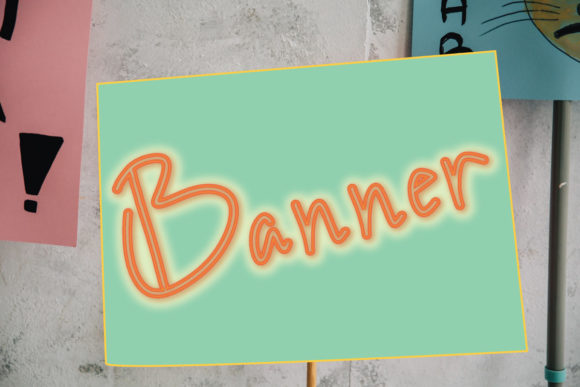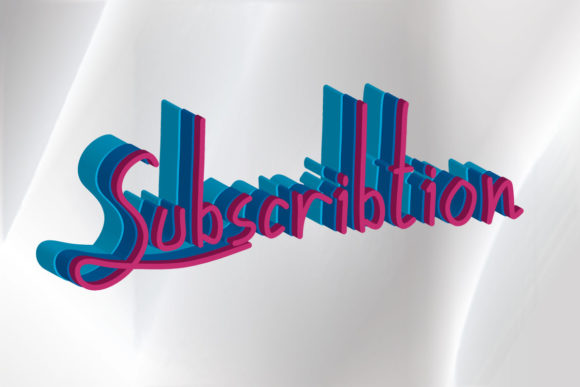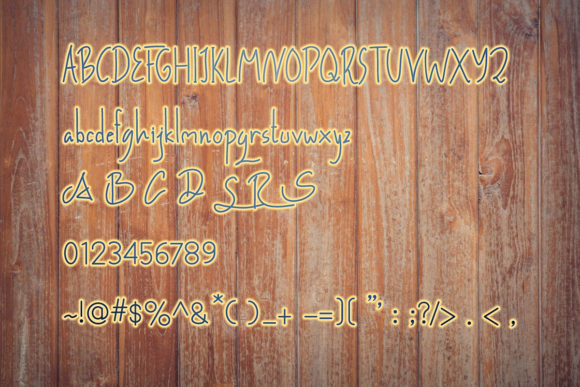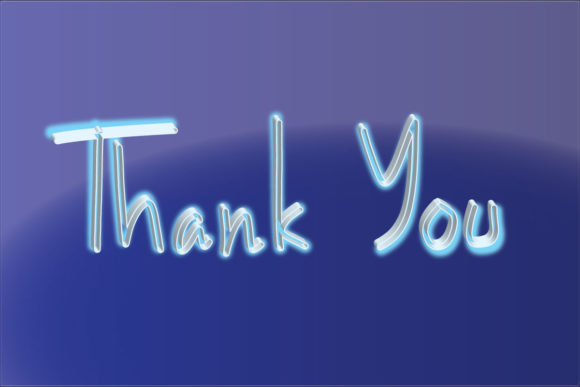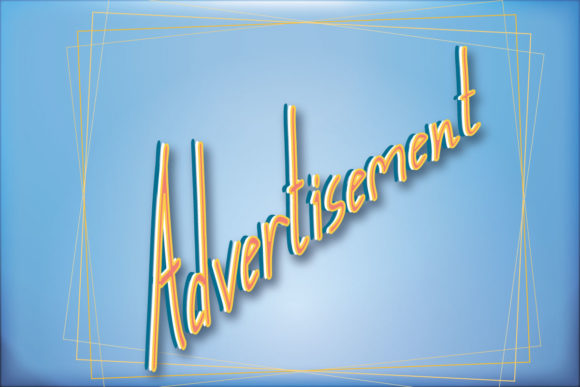
Discover the Charm of Advertisement Font: Elevate Your Designs with a Cute and Natural Handwritten Style
Are you tired of using the same old fonts in your designs? Do you want to add a touch of personality and whimsy to your creative projects? Look no further than Advertisement Font, a delightful and versatile handwritten font that’s sure to take your designs to the next level. In this article, we’ll explore the features and benefits of Advertisement Font, and show you how to make the most of this beautiful font in your designs.
What is Advertisement Font?
Advertisement Font is a carefully crafted handwritten font that’s designed to bring a sense of warmth and approachability to your designs. With its cute and natural style, this font is perfect for a wide range of projects, from branding and advertising to packaging and digital media. Whether you’re a designer, crafty DIY enthusiast, or simply someone who loves to create, Advertisement Font is an excellent addition to your font collection.
The Benefits of Advertisement Font
So, what makes Advertisement Font so special? Here are just a few of the benefits you can expect when using this font in your designs:
- Versatility: Advertisement Font is incredibly versatile, making it suitable for a wide range of designs and projects. Whether you’re creating a logo, brochure, or social media graphic, this font is sure to fit the bill.
- Unique Style: With its handwritten style, Advertisement Font adds a touch of personality and whimsy to your designs. This font is perfect for brands and designers who want to stand out from the crowd and create a lasting impression.
- Ease of Use: Advertisement Font is easy to read and use, making it perfect for both digital and print applications. Whether you’re creating a website, social media graphic, or print advertisement, this font is sure to deliver.
How to Use Advertisement Font in Your Designs
Now that we’ve covered the benefits of Advertisement Font, let’s take a look at how to use it in your designs. Here are a few tips to get you started:
- Pair it with Other Fonts: Advertisement Font pairs well with a variety of other fonts, making it easy to create visually appealing combinations. Try pairing it with a clean sans-serif font for a modern look, or with a bold serif font for a more dramatic effect.
- Experiment with Colors: Advertisement Font looks great in a variety of colors, from bright and bold to soft and pastel. Experiment with different colors to find the perfect combination for your design.
- Use it for Headlines and Body Text: Advertisement Font is suitable for both headlines and body text, making it a great all-around font for your designs. Use it to create eye-catching headlines, or for longer blocks of text.
Who is Advertisement Font Suitable For?
Advertisement Font is suitable for a wide range of designers, crafters, and creatives. Here are just a few examples:
- Graphic Designers: Advertisement Font is perfect for graphic designers who want to add a touch of personality to their designs. Use it to create logos, brochures, business cards, and more.
- DIY Crafters: Advertisement Font is also great for DIY crafters who want to add a personal touch to their projects. Use it to create handmade cards, gift tags, and other crafty projects.
- Digital Designers: Advertisement Font is suitable for digital designers who want to create engaging and interactive designs. Use it to create social media graphics, website headers, and more.
| Font Name | Advertisement Font |
| Author | Designvector10 |
In conclusion, Advertisement Font is a beautiful and versatile handwritten font that’s perfect for a wide range of designs and projects. With its cute and natural style, this font is sure to add a touch of personality and whimsy to your creative projects. Whether you’re a designer, crafty DIY enthusiast, or simply someone who loves to create, Advertisement Font is an excellent addition to your font collection. So why wait? Add Advertisement Font to your favorite creative ideas and notice how it makes them come alive!